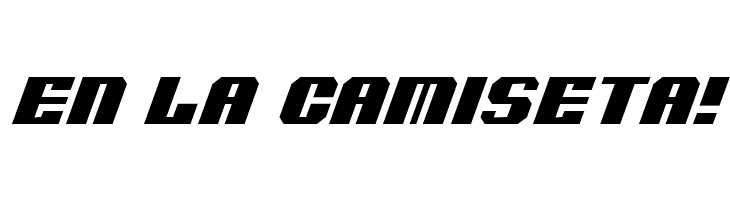
Assassin Nation Extra-Bold Font
- Font: Assassin Nation Extra-Bold
- Weight: Extra-Bold
A bold, italic font with angular, geometric characters and a dynamic style.